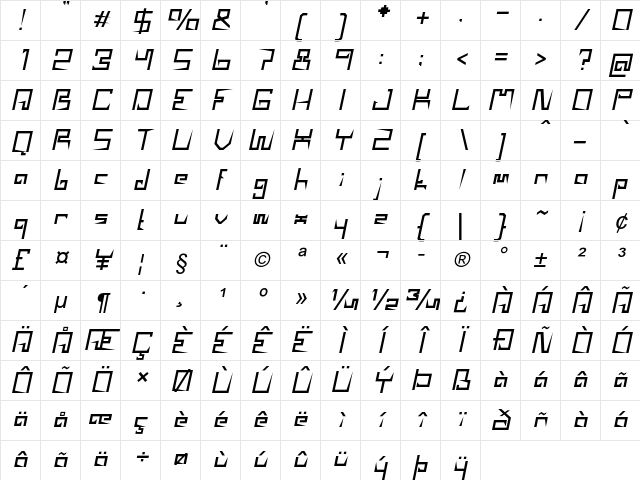
Turin Italic
Design Context for Turin
Turin is a composed and adaptable typeface that performs quietly and consistently across a wide range of design contexts. The slanted form adds forward momentum and visual energy.